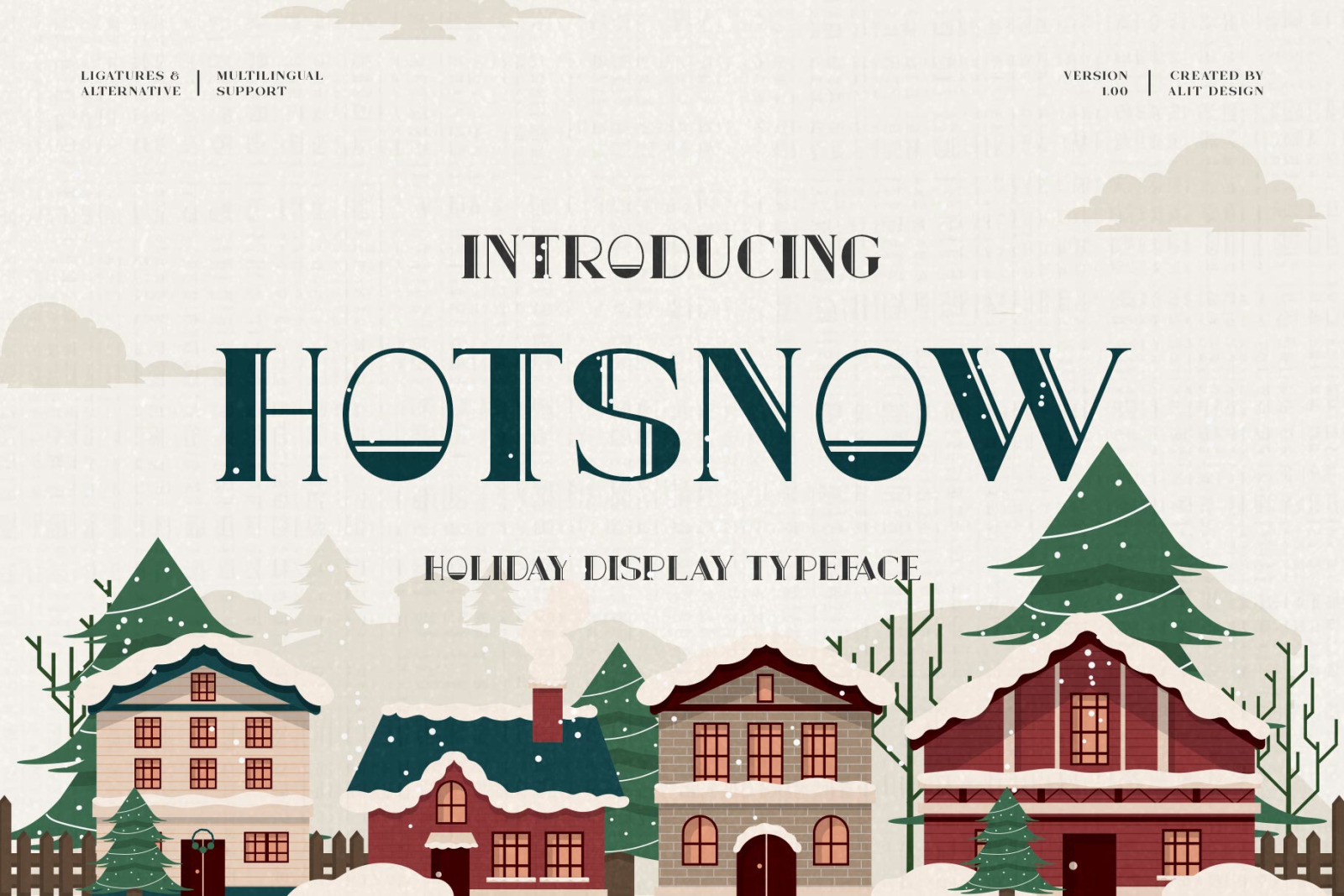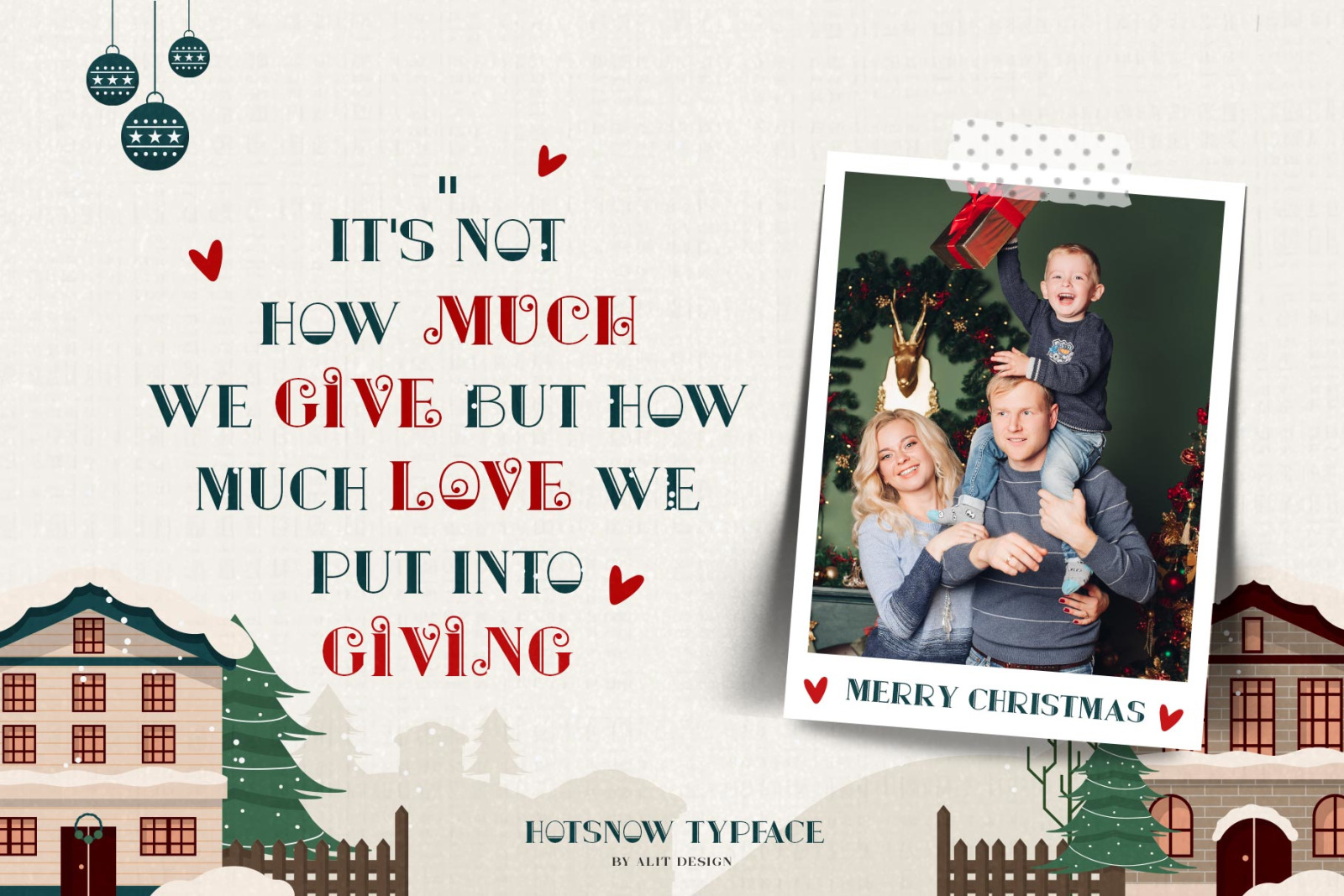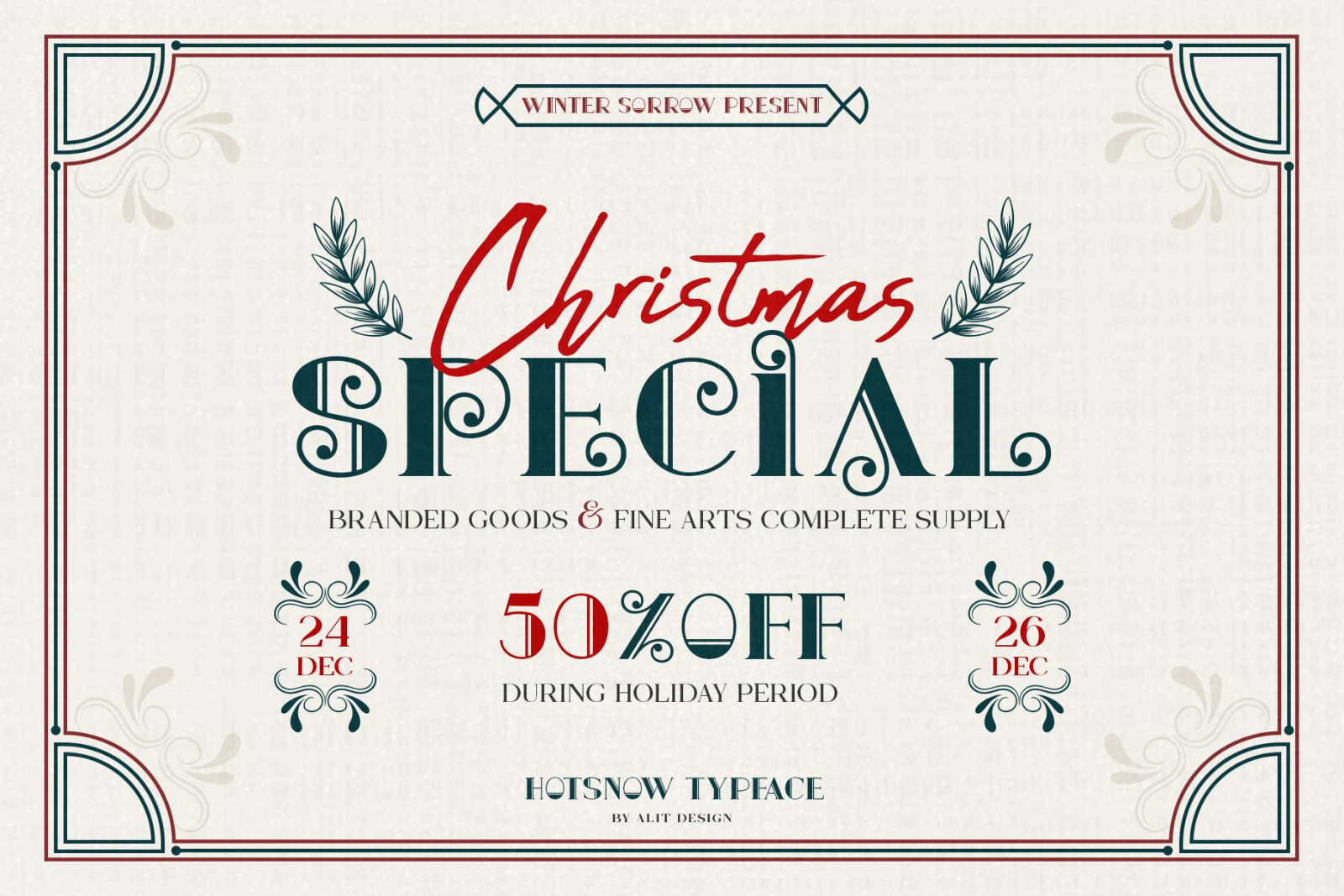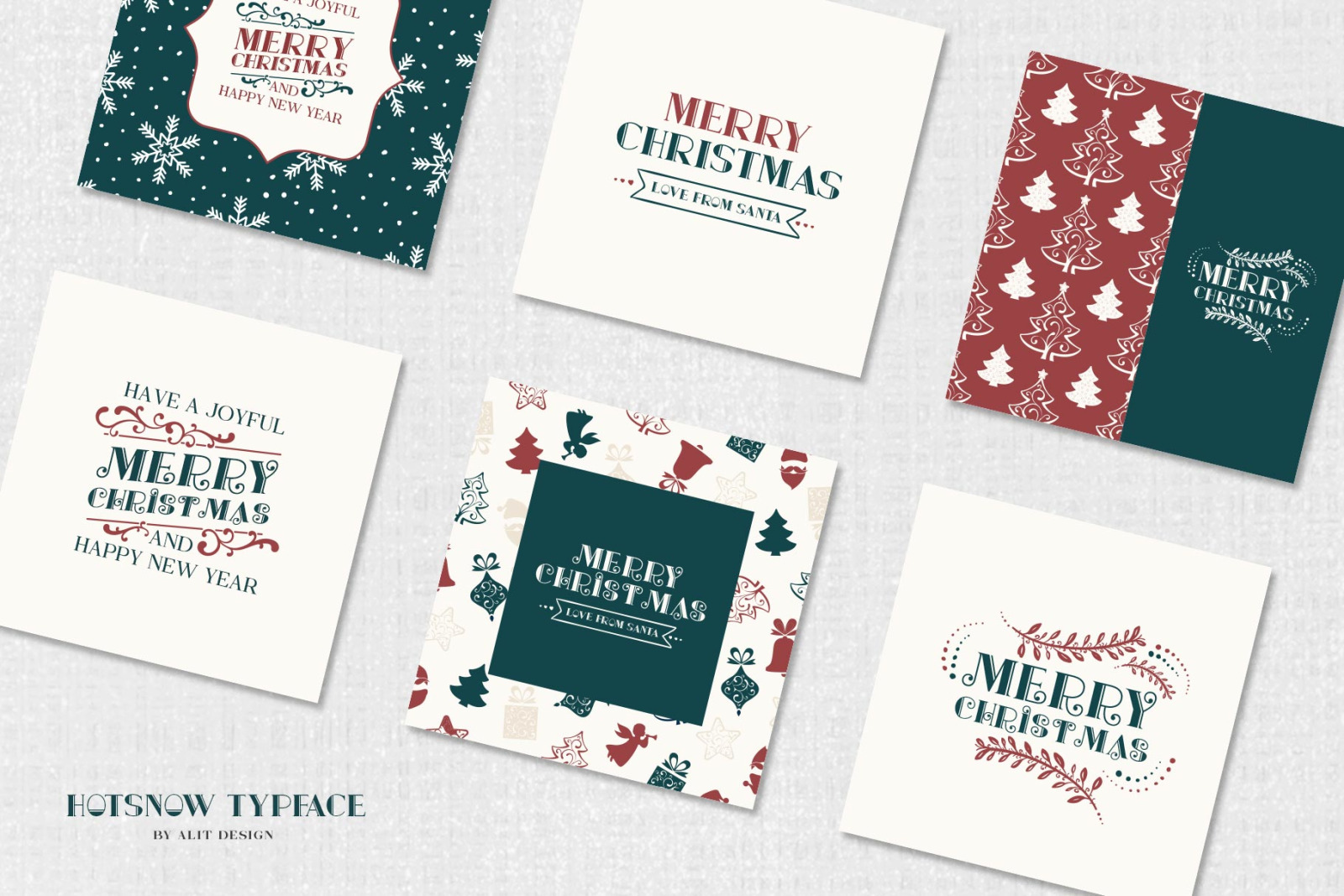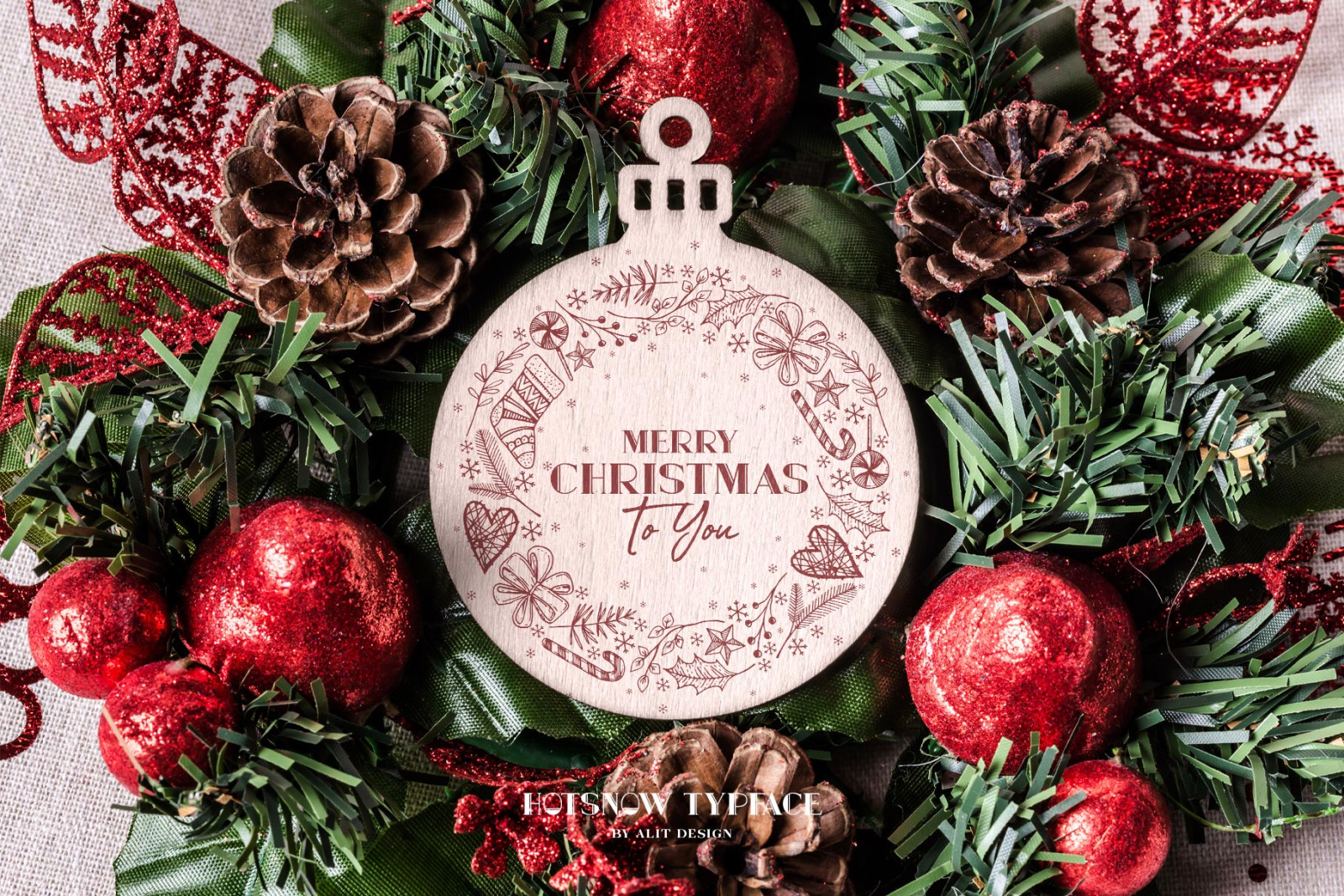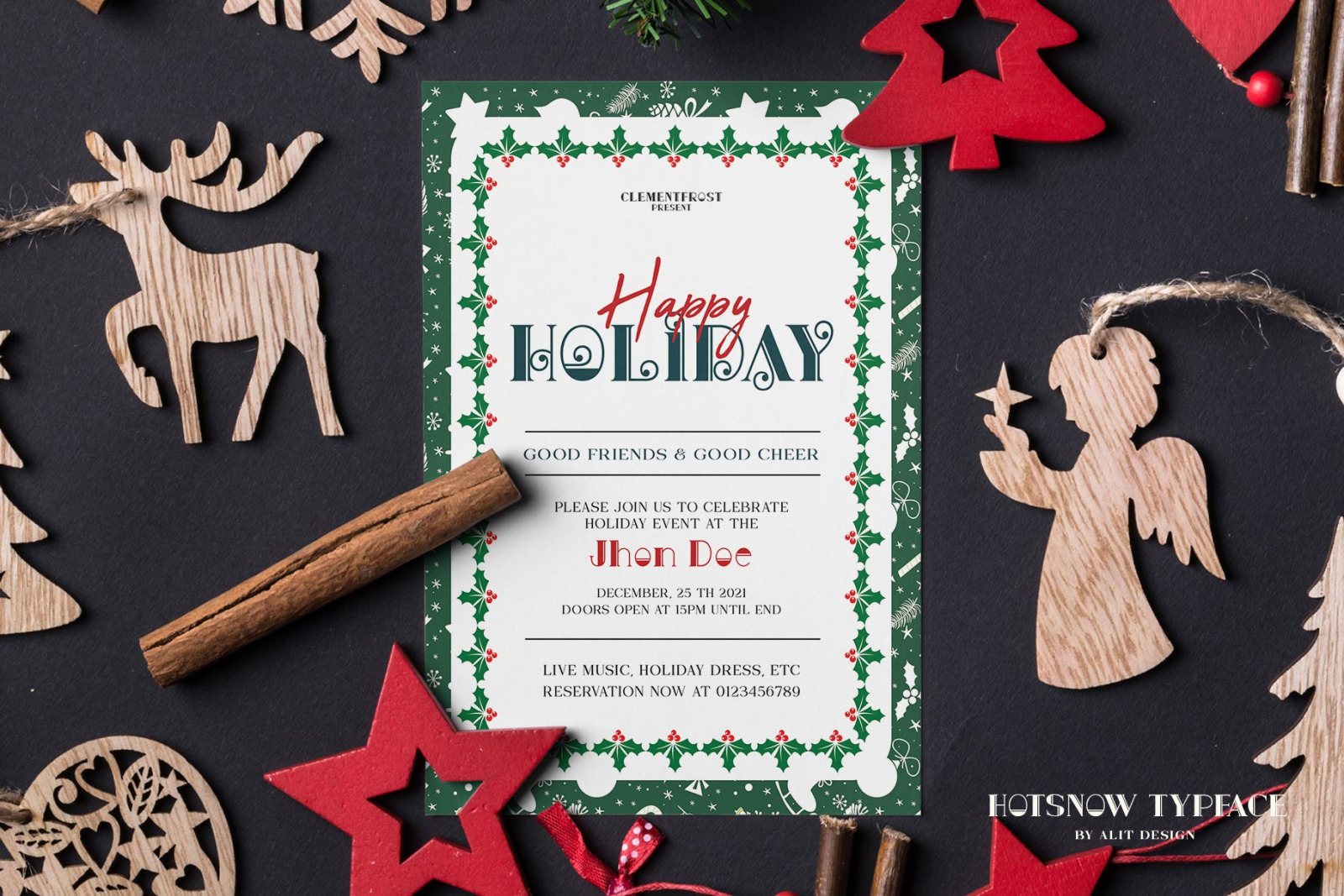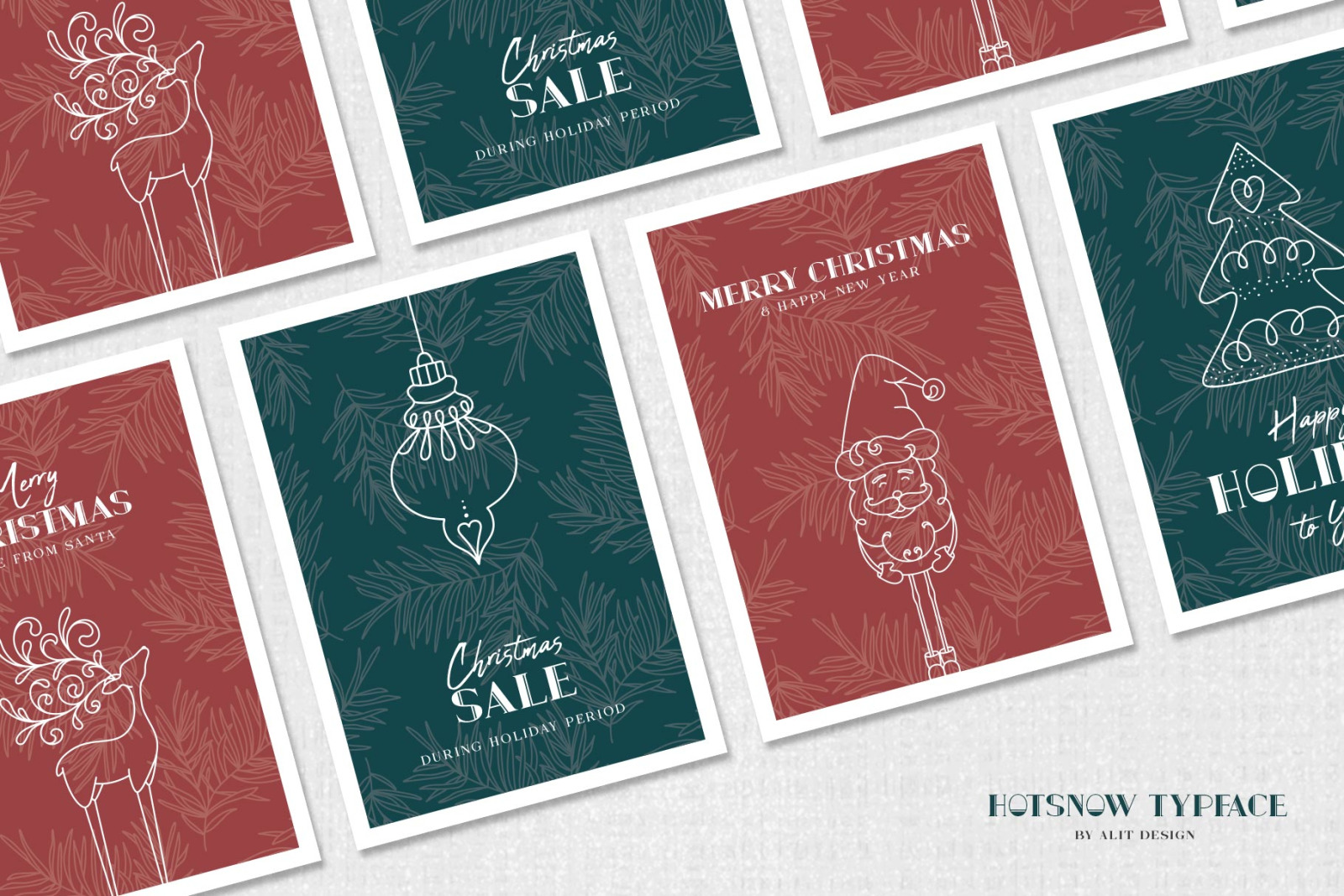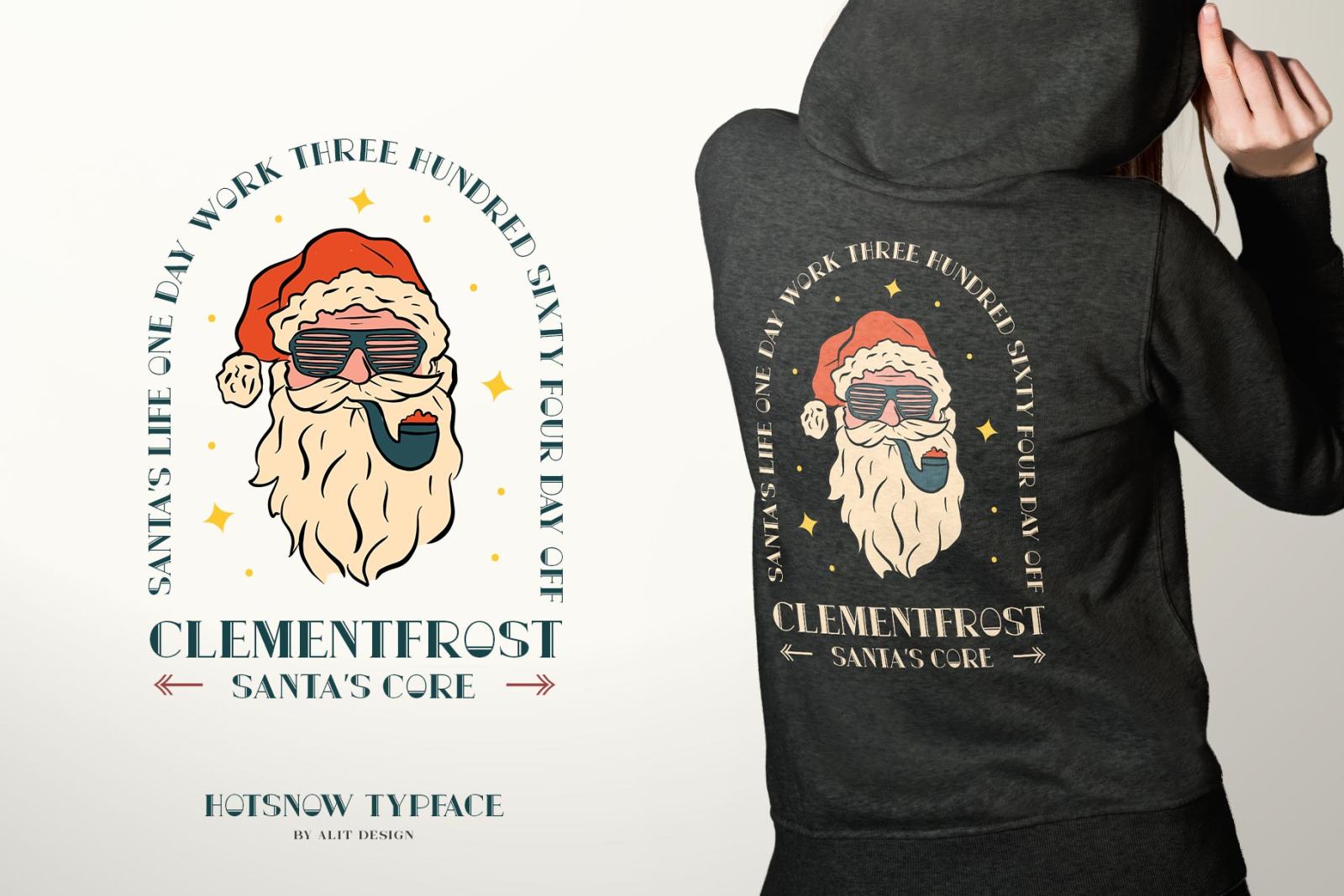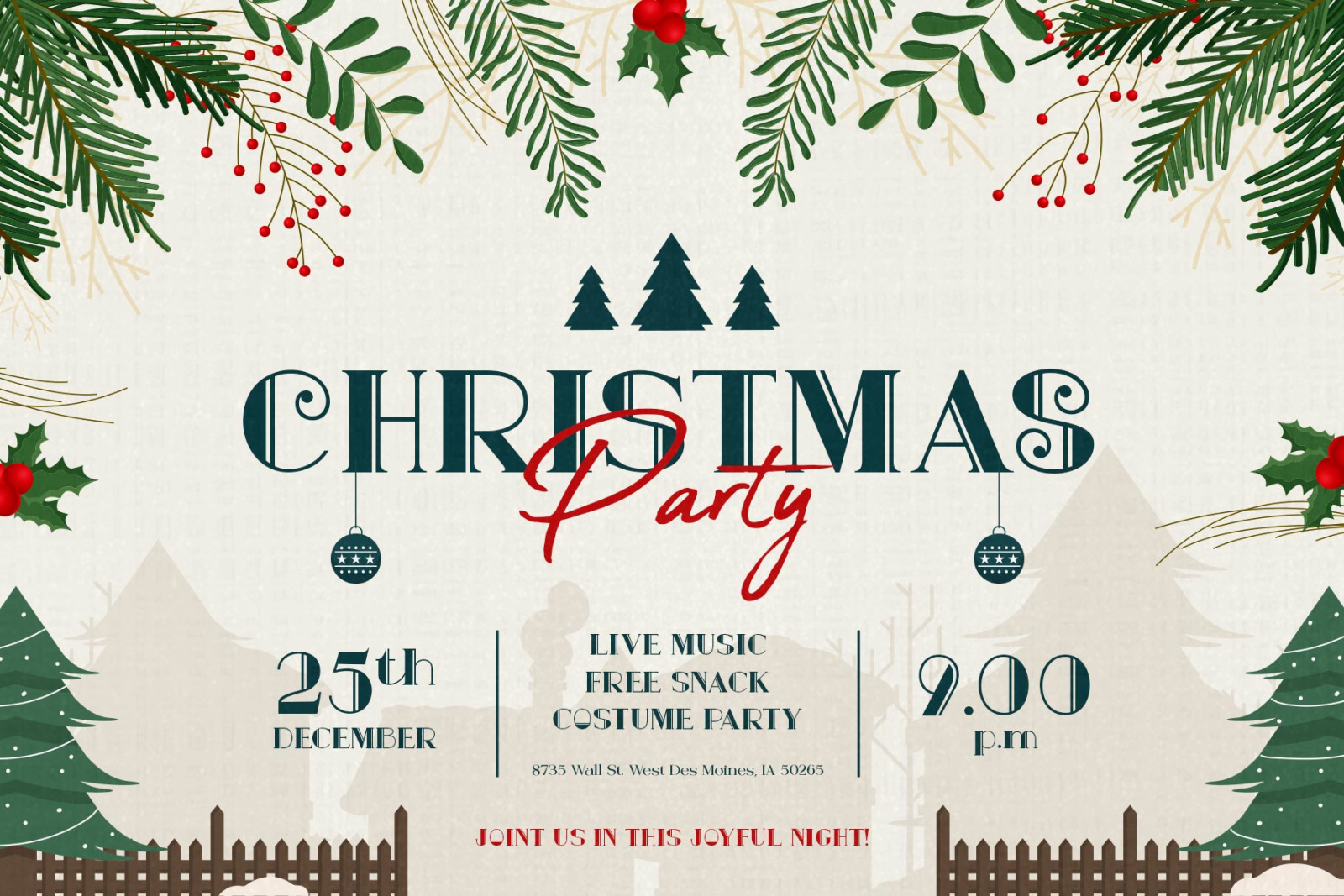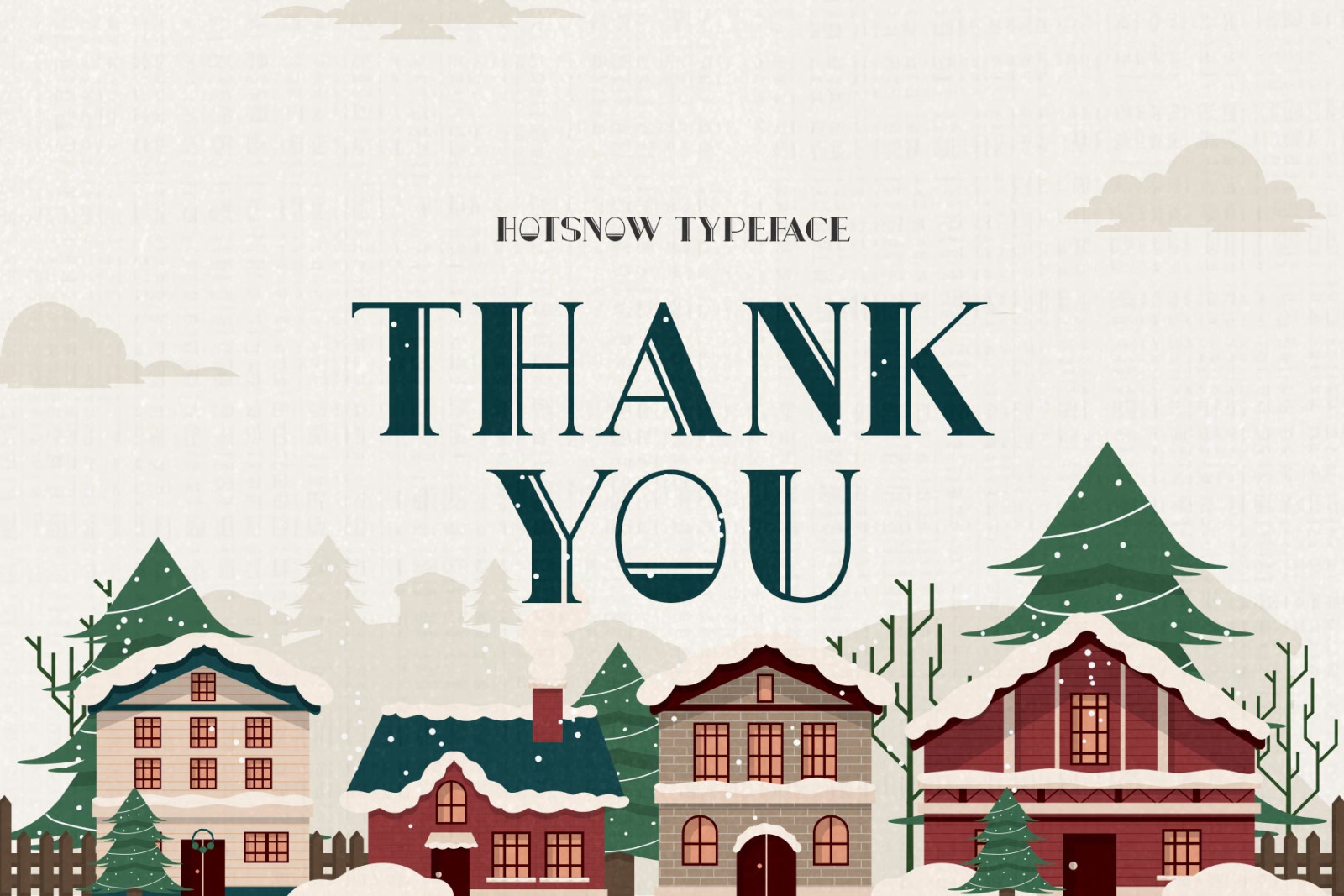
Hot Snow Typeface
❄️Introducing Hot Snow Typeface❄️
☃️ Hot Snow Typeface was created from the concept of the end of the year which has many events such as Christmas, New Year and winter.
Can be used for the design of poster, Big sale sign, greeting card , packaging designs, New Year design and so on with the winter season concept.